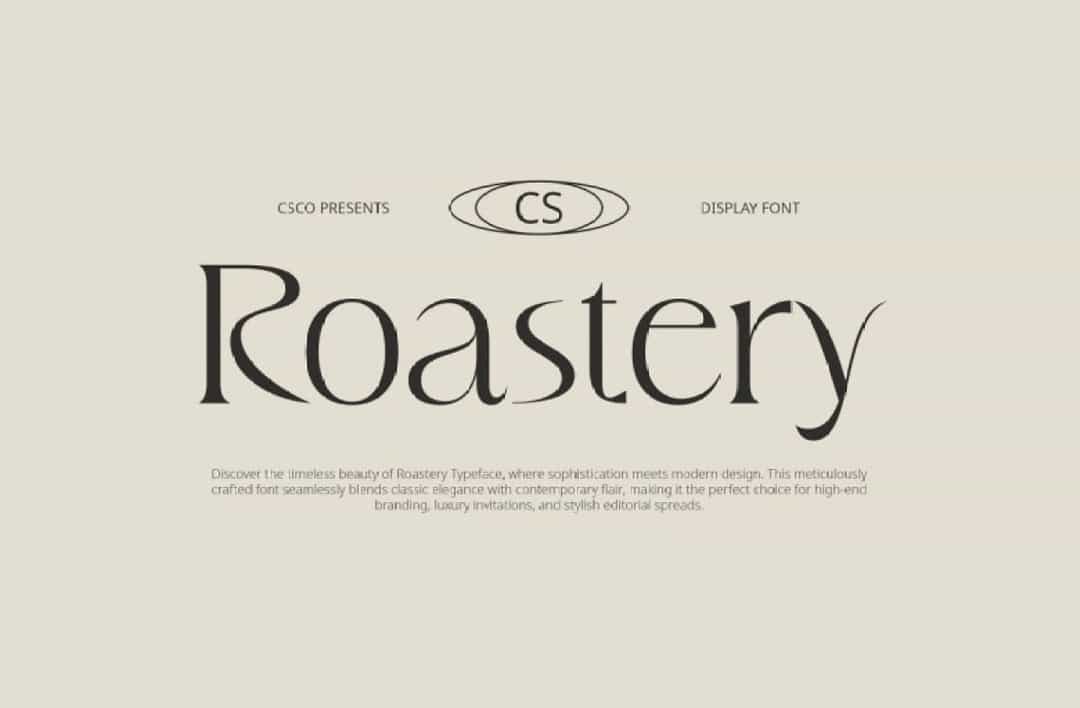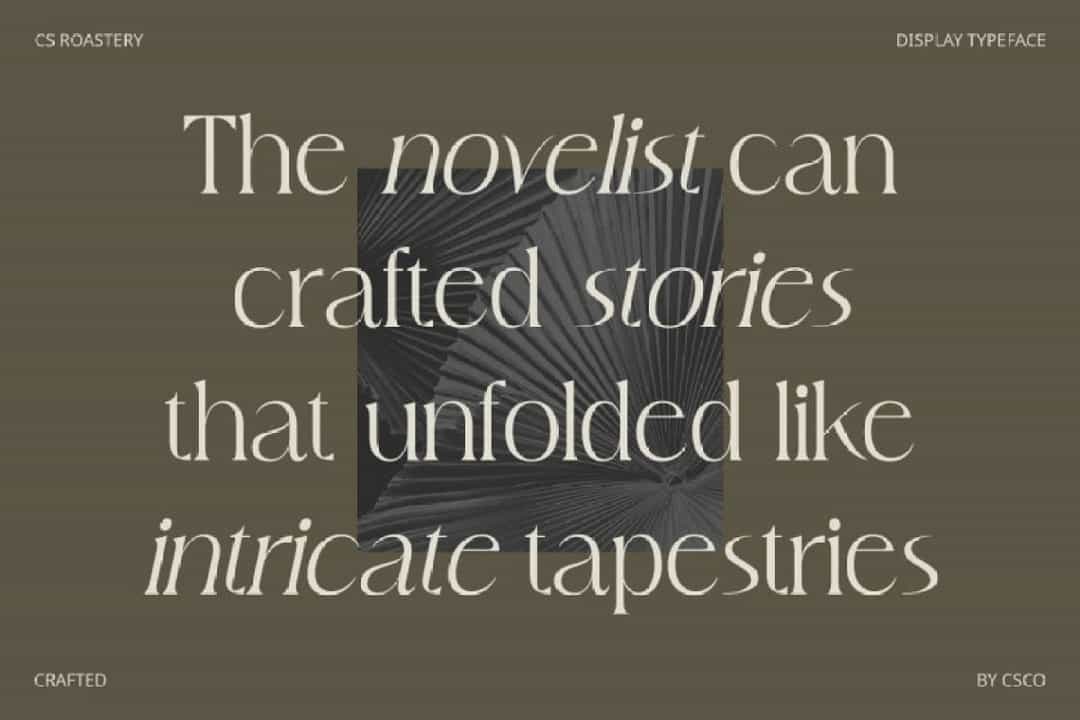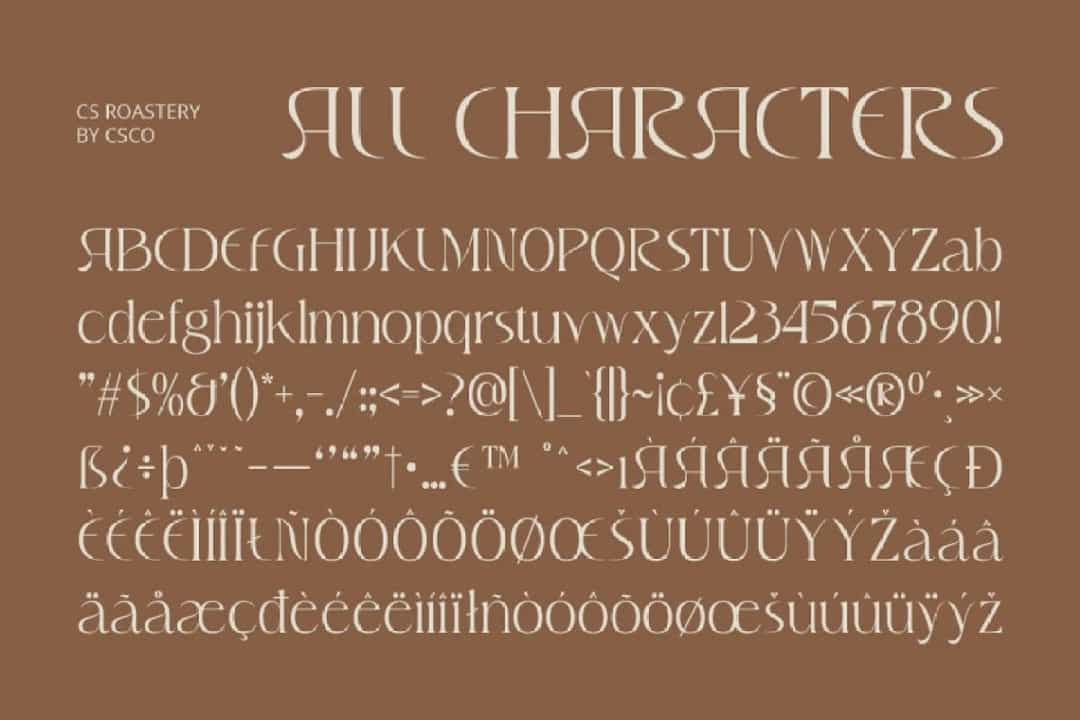
CS Roastery is a display serif font that comes with a modern and stylish design that screams elegance. Perfect for designs which need a traditional appearance with the modern touch, this font gives a noble and experienced look to the work. The design is neat and the features are well proportioned which give it a classic yet new appearance.